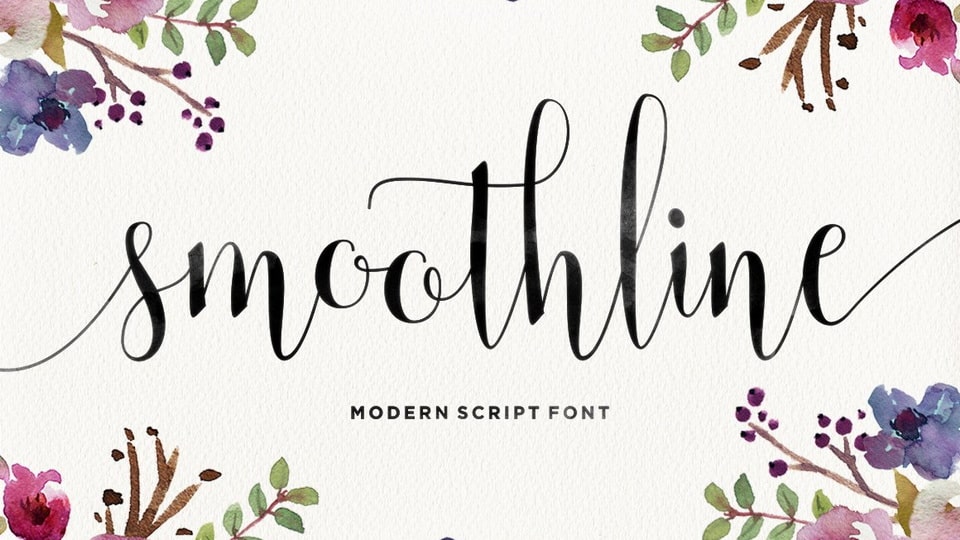
Download Smoothline font, an enchanting handwritten typeface. This versatile script font has a wide spectrum of applications ranging from greeting cards to headlines and is guaranteed to add a romantic feel to your next project.